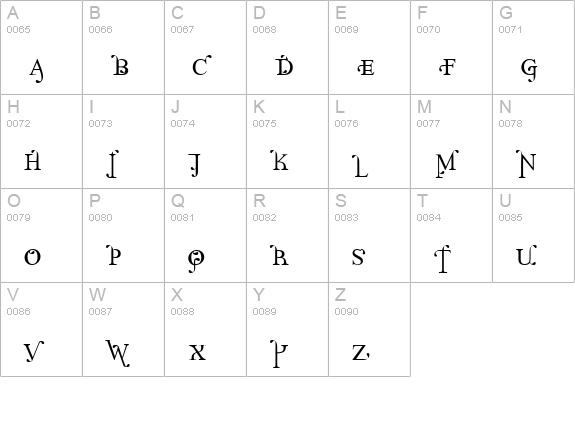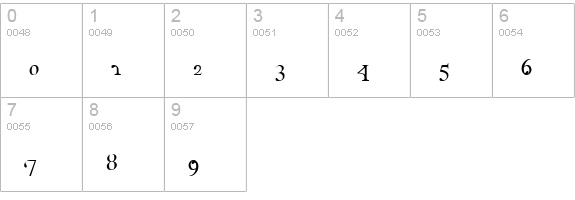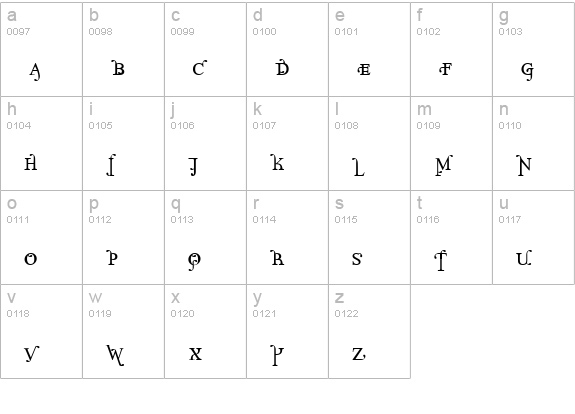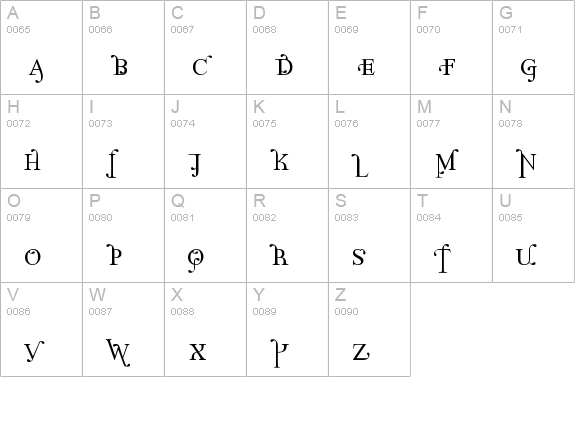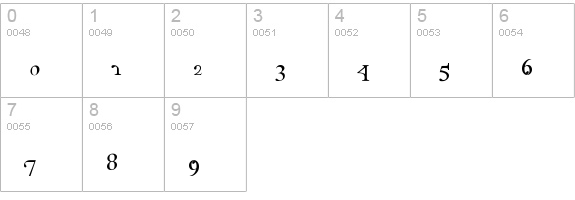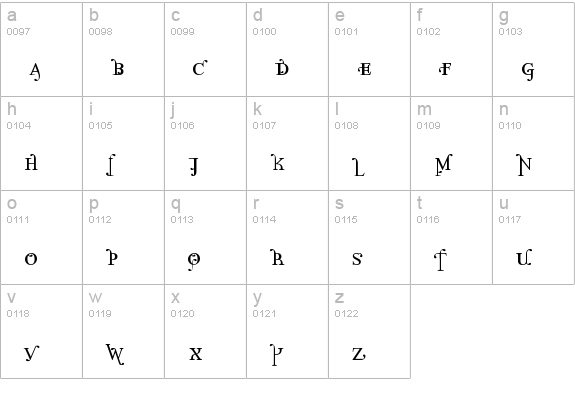
Parolm SmallCaps Font Details
Parolm SmallCaps font is a delightfully elegant and versatile typeface that is sure to elevate any design project. Its unique blend of classic and contemporary elements creates a perfect balance, making it suitable for a wide range of applications. This font features beautifully crafted small capital letters that add a touch of sophistication and refinement to your typography. The clean and crisp lines of Parolm SmallCaps make it highly legible, ensuring optimal readability even at smaller sizes. What sets Parolm SmallCaps apart is not only its stunning aesthetics but also its accessibility. This font is available for free download at FontsMarket.com, allowing designers and enthusiasts alike to add a touch of elegance to their work without any financial constraints. With Parolm SmallCaps, you have the freedom to explore its full potential and unleash your creativity in various projects. Whether you're designing a logo, creating a poster, or crafting a magazine layout, this font is sure to make a lasting impression. Its versatility is further enhanced by the wide range of weights and styles available, allowing you to choose the perfect combination for your specific design needs. From bold and impactful headlines to delicate and refined body text, Parolm SmallCaps has got you covered. So why wait? Download Parolm SmallCaps for free at FontsMarket.com and experience the true beauty and versatility of this remarkable font. Elevate your designs, captivate your audience, and make a statement with Parolm SmallCaps.